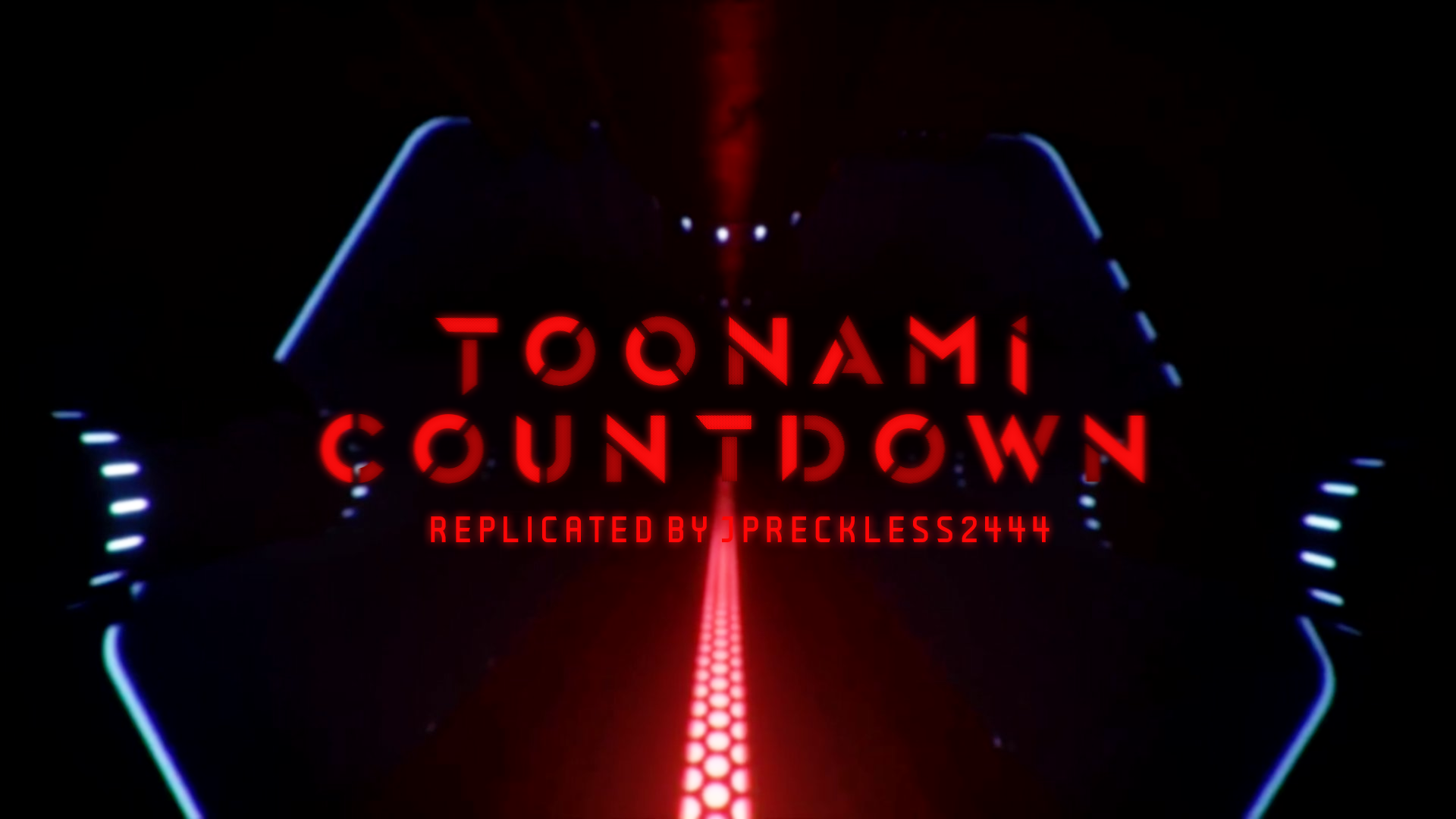
Here it is, the Countdown font I replicated in time before the TIE tomorrow.If Toonami uses the actual one in bumpers, I willing to change to be accurate.
What font did you use on the "Toonami Countdown" thing?
What font did you use on the "REPLICATED BY JPRECKLESS2444" thing
Tenby Five. Just go to dafont & search for it.
The original font I used was Glaser Stencil didn't have brackets. As for the 4 problem, I don't know what to say. What system are you using?
It doesn't. I'll fix it
While you're working on fixing it, I noticed another problem: The number 4 is partially invisible.